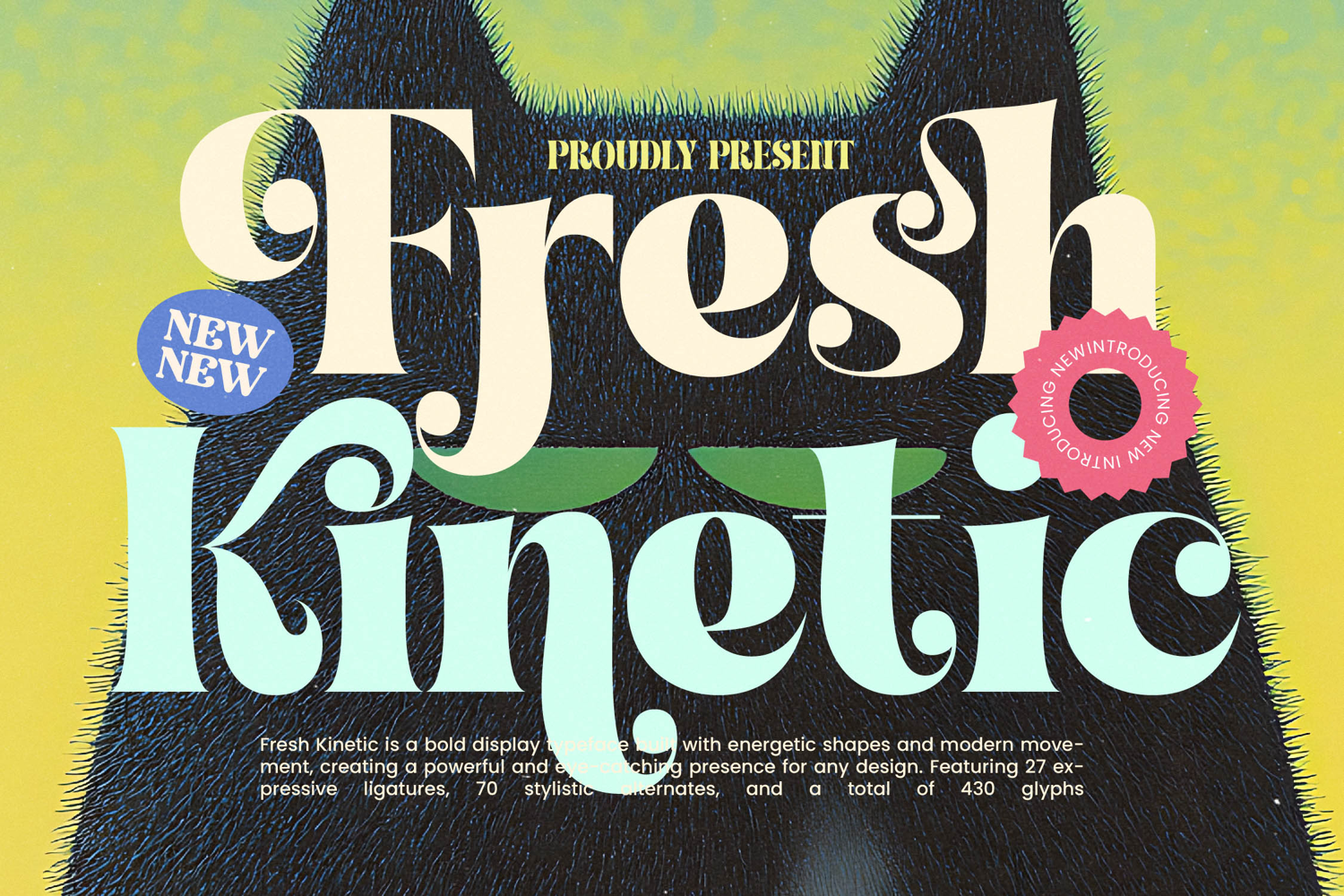
Fresh Kinetic - Modern Display Font
Fresh Kinetic - Modern Display Font, a display powerhouse engineered for attention. This bold typeface marries the expressive, fluid curves of retro design with contemporary precision and clarity. Its heavy weight and dynamic, energetic flow create an immediate visual signature, ensuring your headlines and titles don't just speak, they resonate. This is the ultimate tool for designers seeking a balance between playful energy and polished, professional visibility in competitive creative fields.